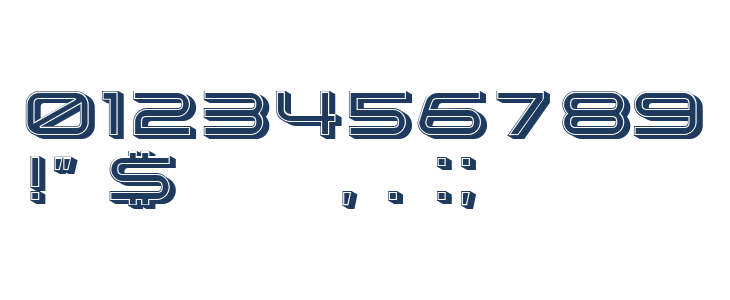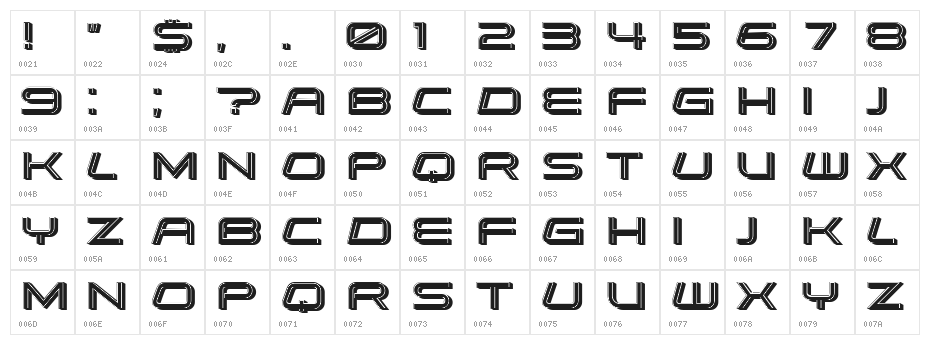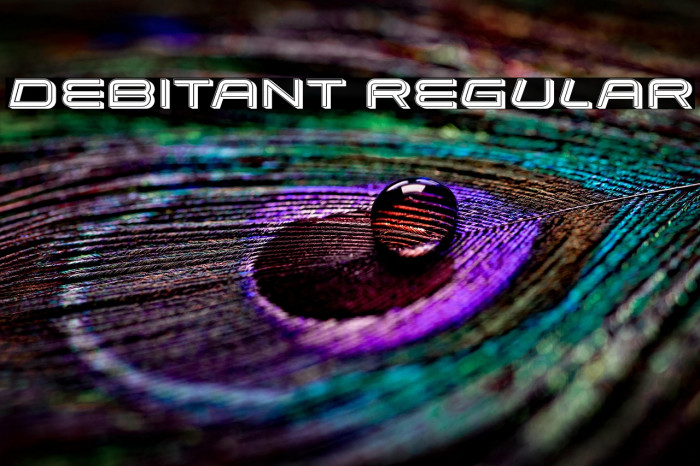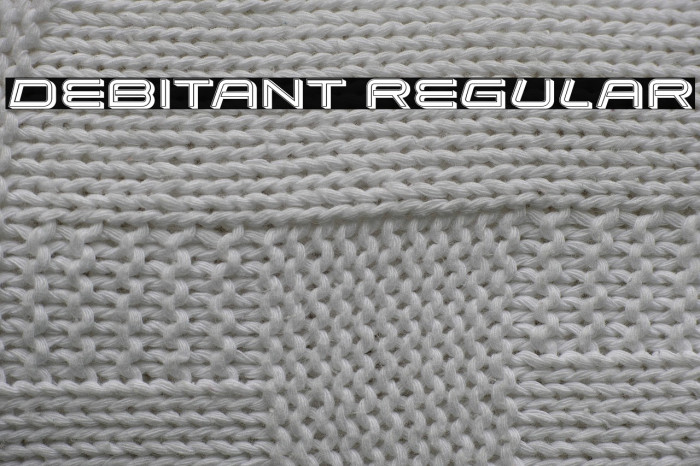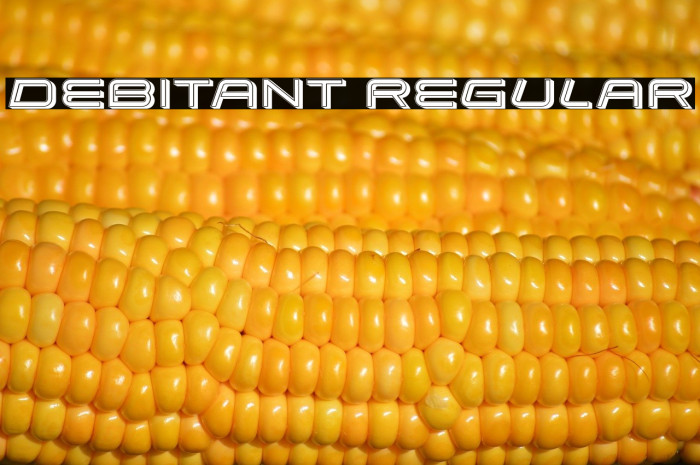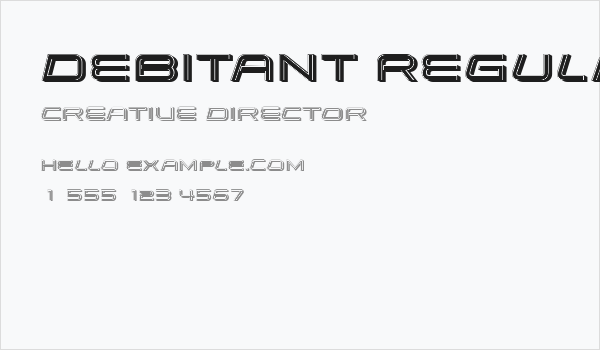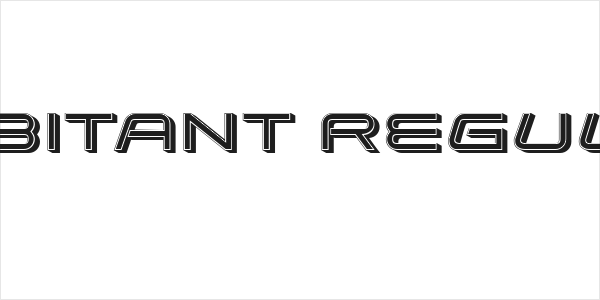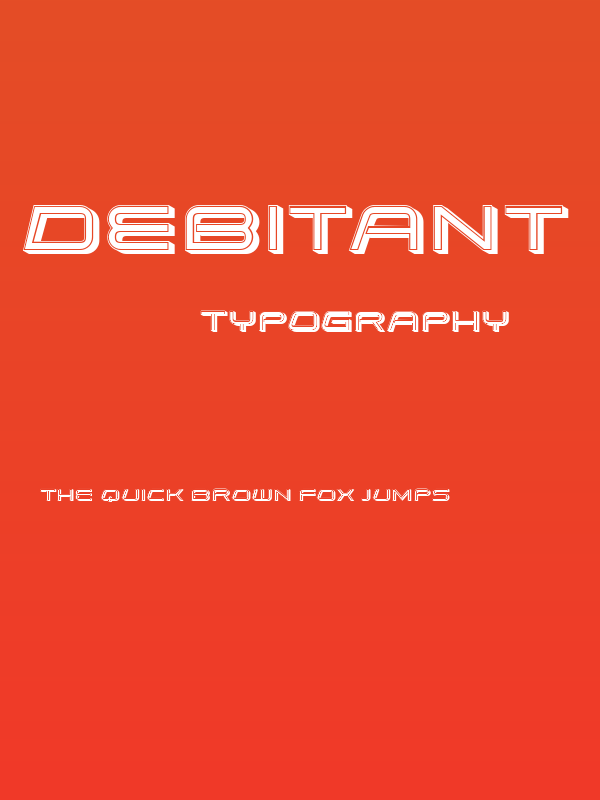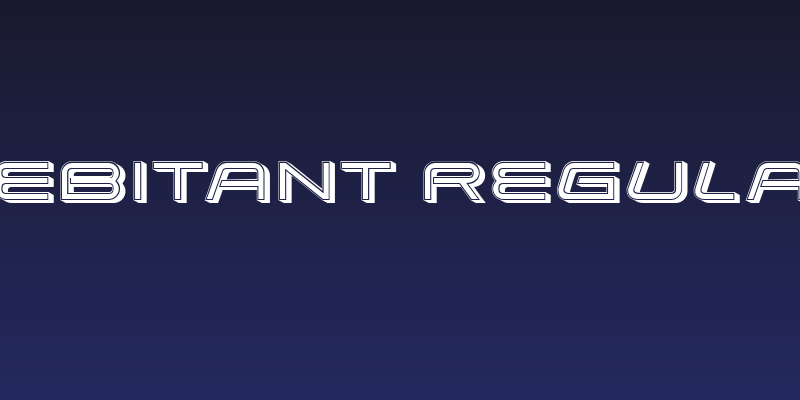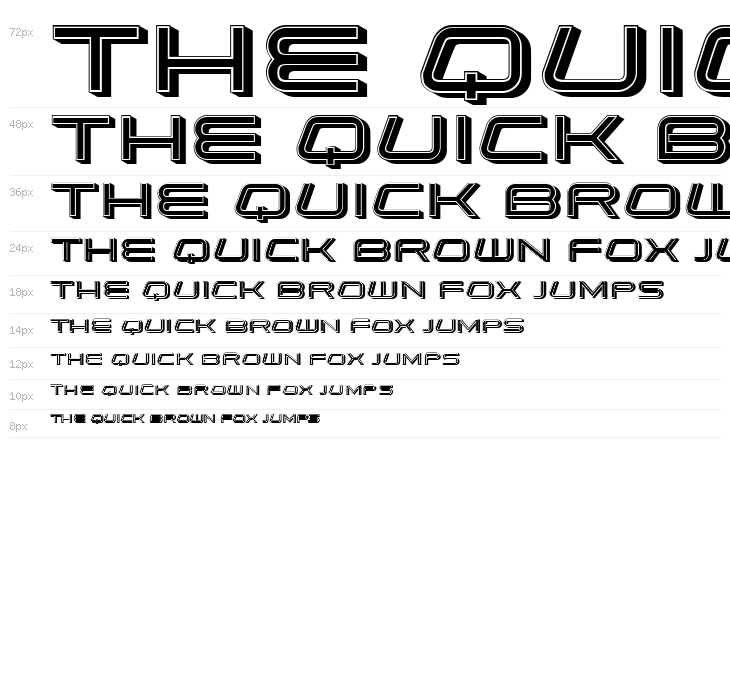
Debitant Regular Font
Debitant Regular Description
This font features a futuristic and geometric design with a distinct double-line structure that creates a sense of depth and dimension. Each character is crafted with precision, showcasing a blend of sharp angles and smooth curves. The uppercase letters are bold and commanding, while the lowercase letters maintain a consistent style, ensuring readability. The numbers and special characters follow the same design principles, making them visually cohesive with the alphabet. This font is ideal for projects that require a modern and tech-inspired aesthetic.
| Proposed Projects | Ideal for technology branding, sci-fi posters, video game titles, and modern logo designs. |